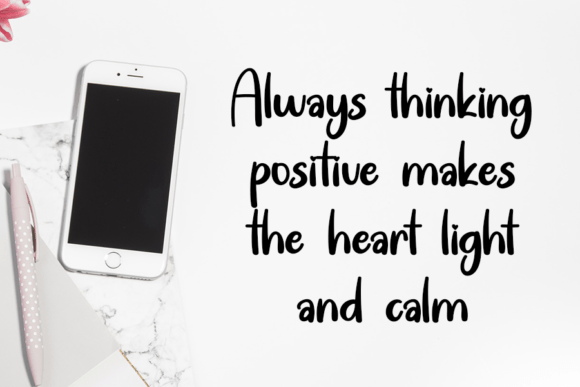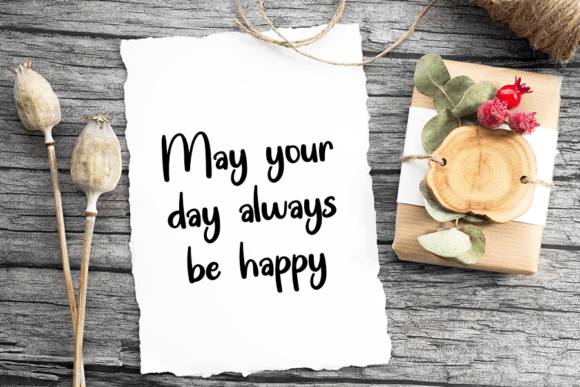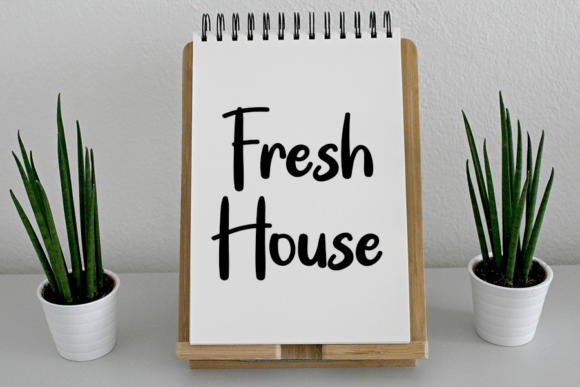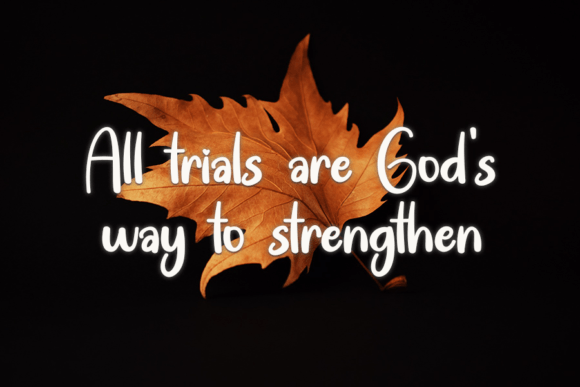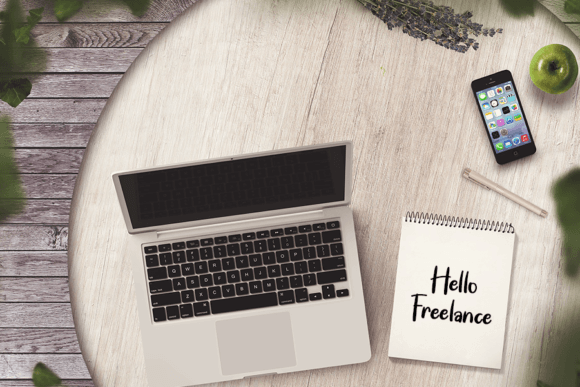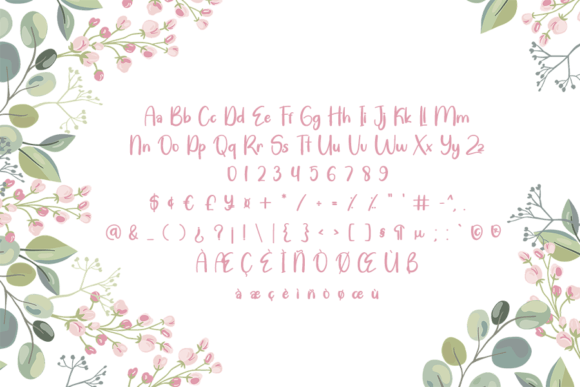
The Perfect Font for Celebrating Life’s Special Moments
Do you remember the rush of excitement when you stumbled upon that perfect font for a design project? The one that made your creation stand out and leave a lasting impression? For designers, finding that special font is like hitting the jackpot, and it’s a feeling we all crave.
One such font that’s sure to become your go-to is the Birthday Font – a cool and modern handwritten font that’s perfect for any occasion. Whether you’re crafting a birthday card, designing a presentation, or creating digital art, this font has got you covered. Its versatility and unique style make it an invaluable addition to any designer’s toolkit, and its potential to become your favorite font is undeniable.
Birthday Font Key Features
- Unique Characteristics: The Birthday Font features custom-designed characters and glyphs that add a celebratory touch to any design, including birthday candles, confetti, and balloons.
Birthday Font Review
I recently had the chance to work with the “Birthday Font” and I have mixed feelings about it.
- The font is highly customizable, allowing for a wide range of color options and sizes.
- The font is optimized for digital use, making it perfect for social media, websites, and other online platforms.
- The font lacks a unique and distinctive design, making it feel somewhat generic and unoriginal.
- It may not be the best choice for print materials, as it can appear blurry or distorted when scaled up.
- The font’s bold and italic styles may not be as polished as the regular style.
Overall, the “Birthday Font” is a decent choice for digital projects, but it may not stand out in a crowded market. While it’s easy to use and customize, its generic design and limitations make it feel like a middle-of-the-road option. If you’re looking for a unique and eye-catching font, you may want to consider other options.
Birthday Font is commonly used for:
- Birthday invitations and party decorations
- Personalized birthday cards and gifts
- Special occasion graphics and designs
Tips for Getting the Most Out of Birthday Font
Here are some tips for getting the most out of Birthday Font:
- Use it in combination with bright, bold colors to create a festive atmosphere.
- Use it for headings and titles to draw attention to important information